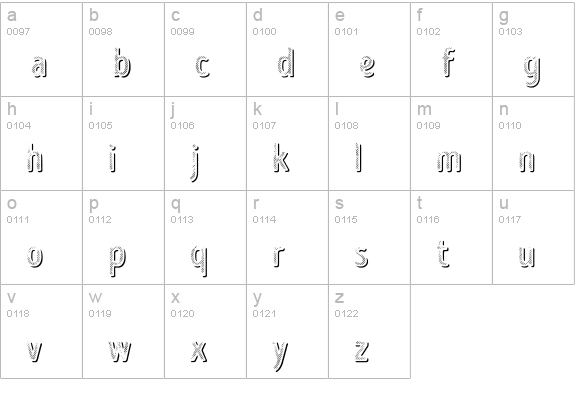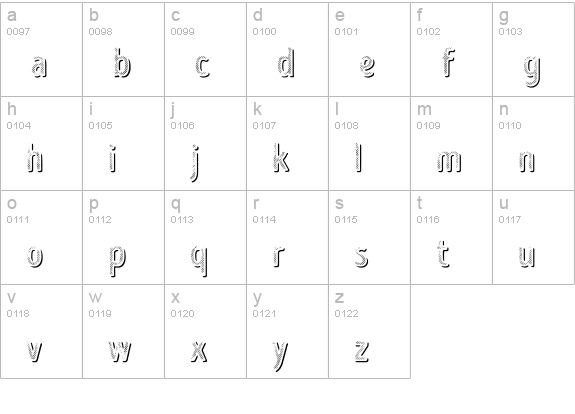
Intro Head B L Shade Font Details
Intro Head B L Shade font is a modern and stylish typeface that exudes sophistication and elegance. With its bold and distinctive letterforms, this font is perfect for making a bold statement in your designs. The unique shade effect adds depth and dimension, making your text stand out even more. What's even better is that Intro Head B L Shade font is available for free download at FontsMarket.com. This means you can easily access this stunning font and use it in your projects without any cost. Whether you're designing a poster, logo, or any other creative project, Intro Head B L Shade font will add a touch of class and style to your work. Don't miss out on this amazing opportunity to enhance your designs with this beautiful font!